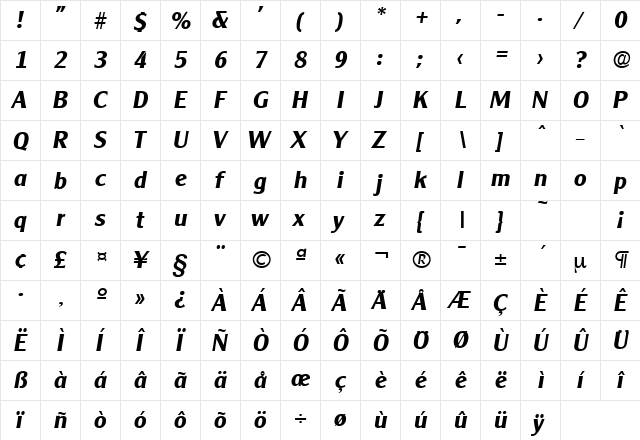
Cleargothic-Serial BoldItalic Font Preview
Design Context for Cleargothic-Serial Typeface
Cleargothic-Serial has the quiet confidence of well-executed sans-serif typography: versatile, unobtrusive, and dependable at any size. Its italic angle brings a sense of urgency and motion to the letterforms. The heavy weight commands attention and anchors typographic hierarchies.
A strong choice for UI design, app interfaces, bold signage, and corporate brand systems.
Font Pairing: Use Cleargothic-Serial for headlines alongside a lighter-weight sans or serif for body copy to establish clear visual hierarchy.
Pro Tip: Pair Cleargothic-Serial with a display or serif font for headlines — its neutral character makes it an excellent supporting player in complex typographic systems.